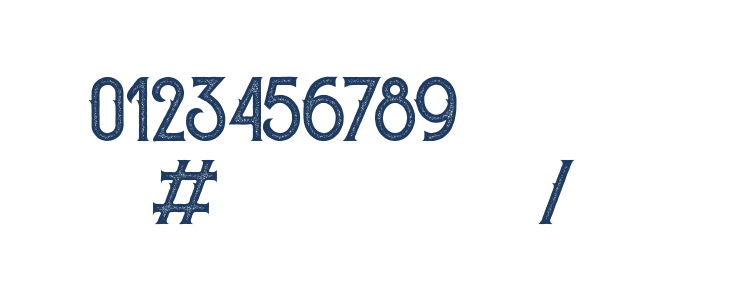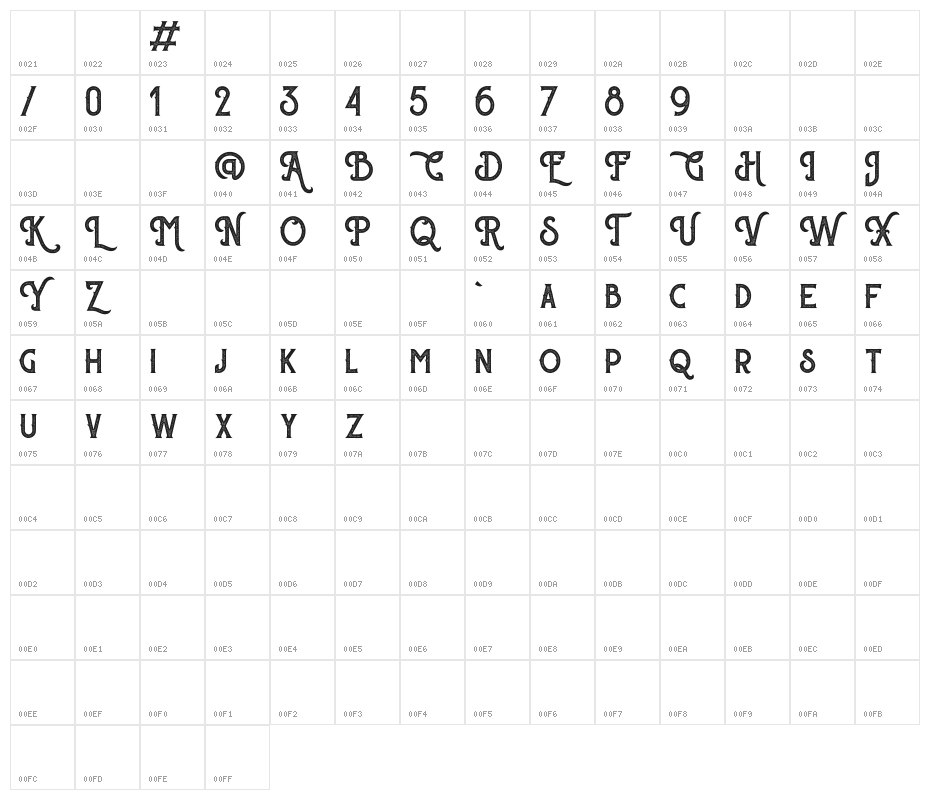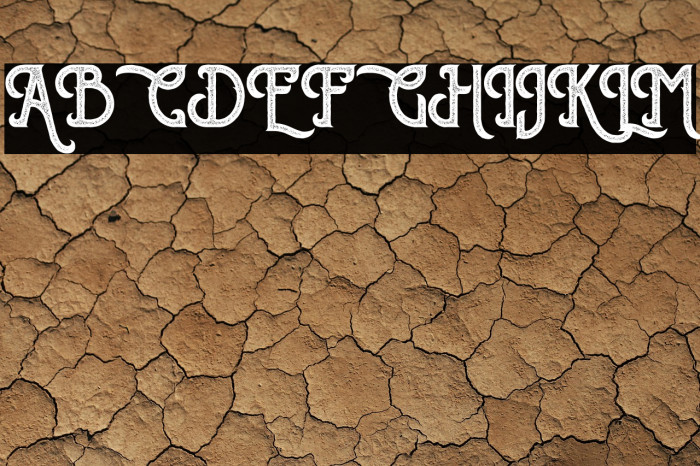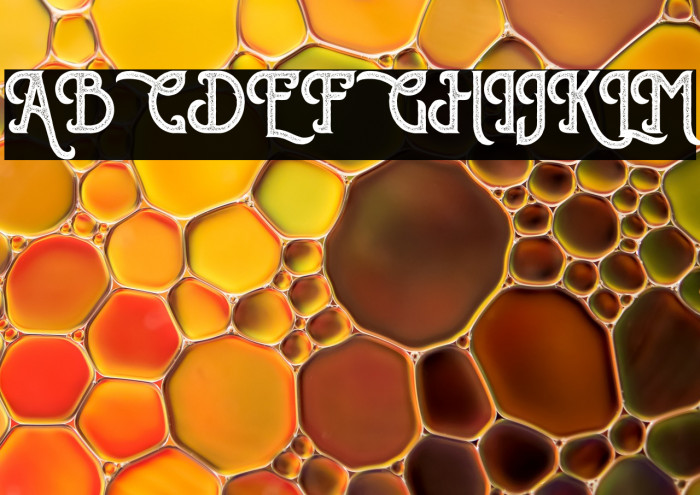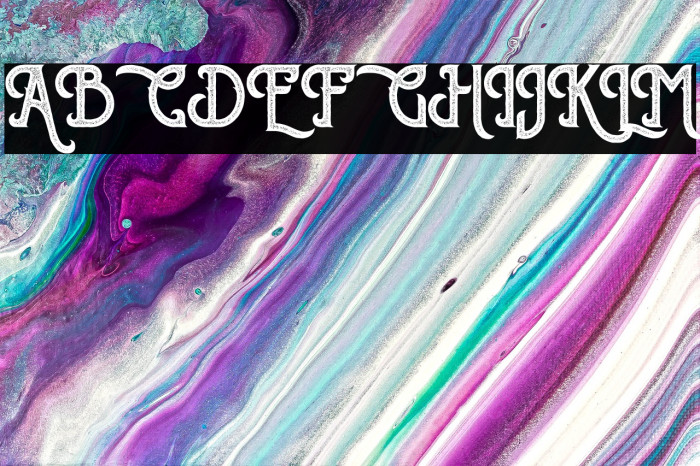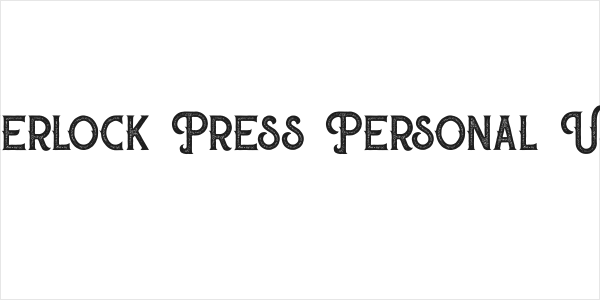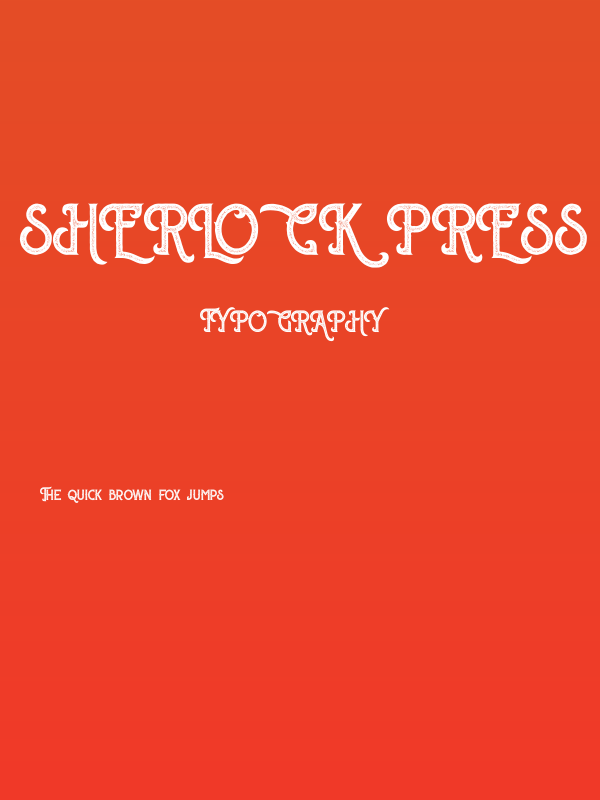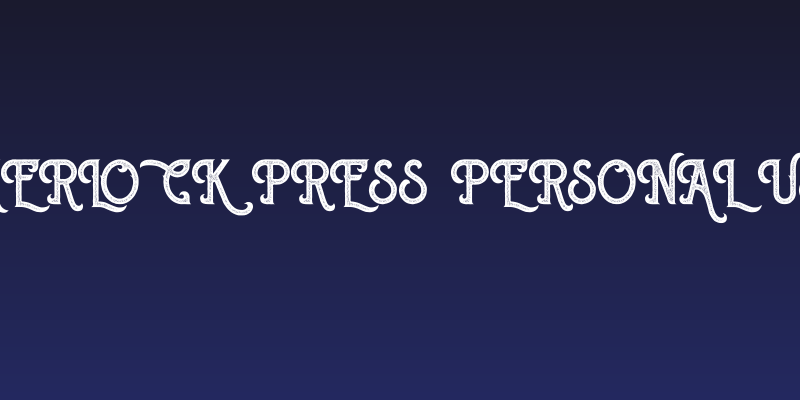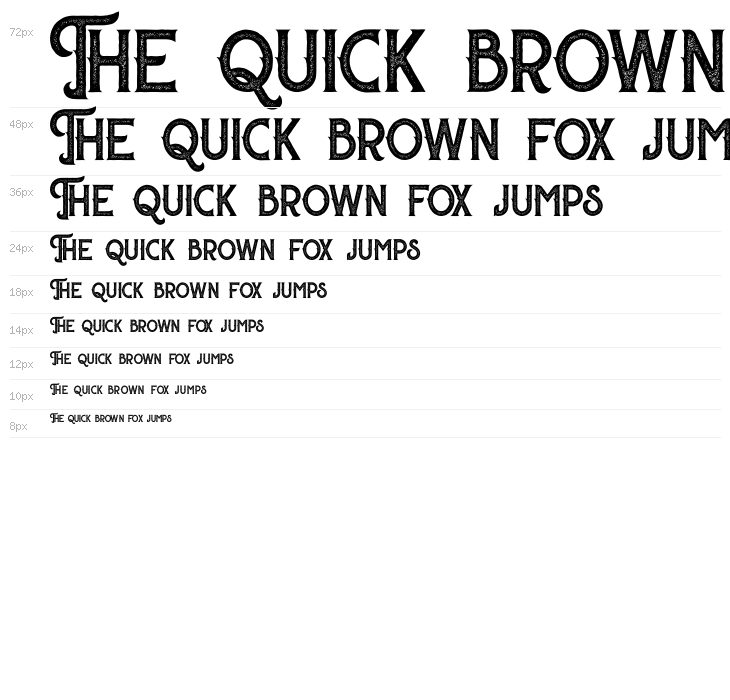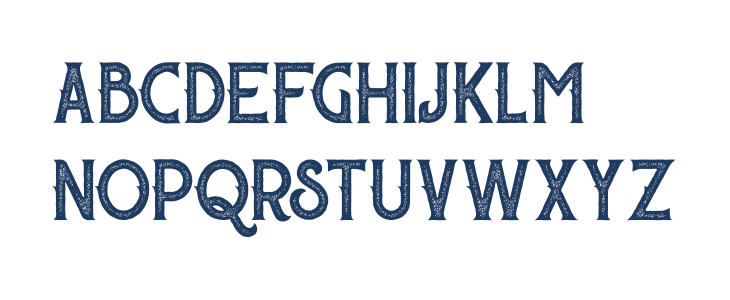
Sherlock Press Personal Use Font
Sherlock Press Personal Use Description
This font features a bold and decorative style with intricate details and a textured appearance. The uppercase letters have a unique flair, with curved and embellished serifs that give them a vintage and ornate look. The lowercase letters maintain a consistent style, complementing the uppercase with similar decorative elements. The numerals are bold and follow the same textured pattern, making them stand out. Special characters like the hashtag and slash are designed with the same attention to detail, ensuring a cohesive look across all characters. The overall design is reminiscent of old-fashioned printing press styles, making it ideal for projects that require a touch of nostalgia and elegance.
| Proposed Projects | Ideal for vintage-themed posters, book covers, and branding that requires an elegant, old-fashioned touch. |